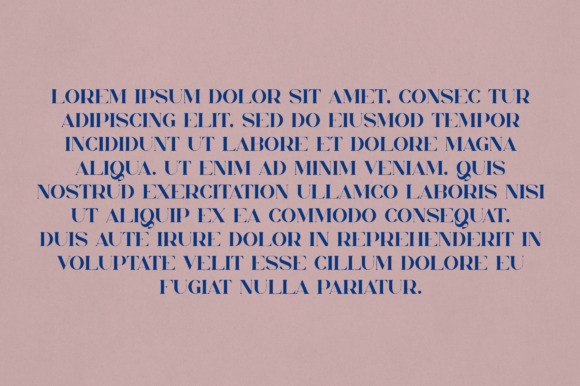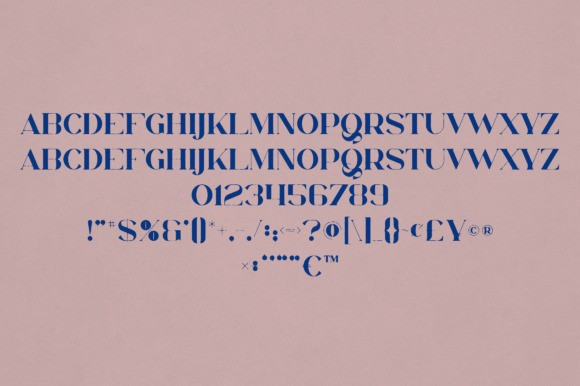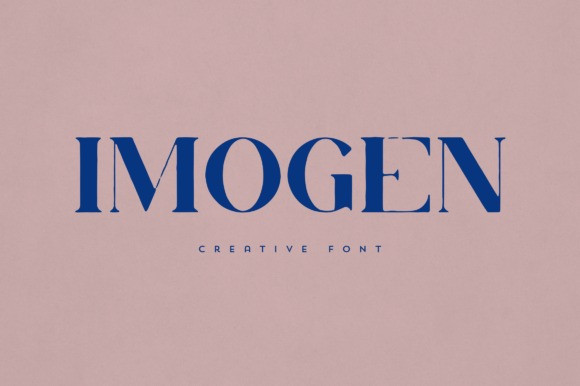
Imogen Font
Imogen Font is an elegant and versatile serif font that will make your typography truly unique! It will enchant every logo, branding, headline, or plain text!